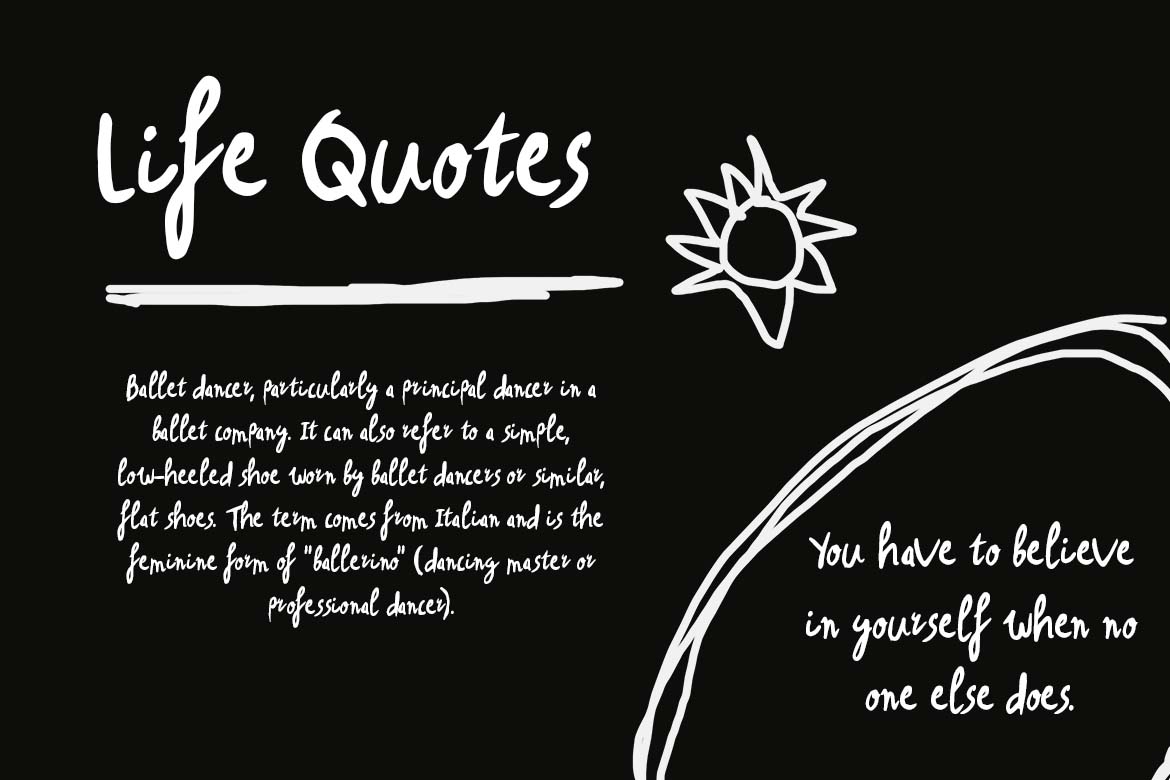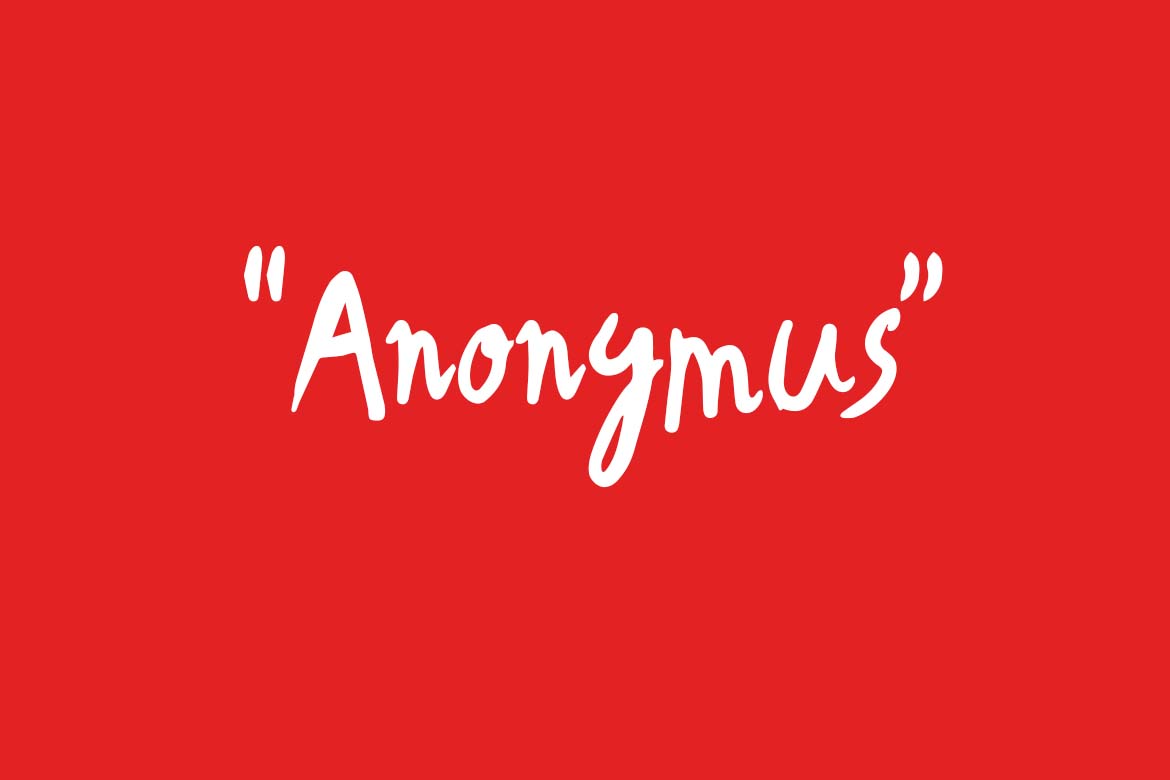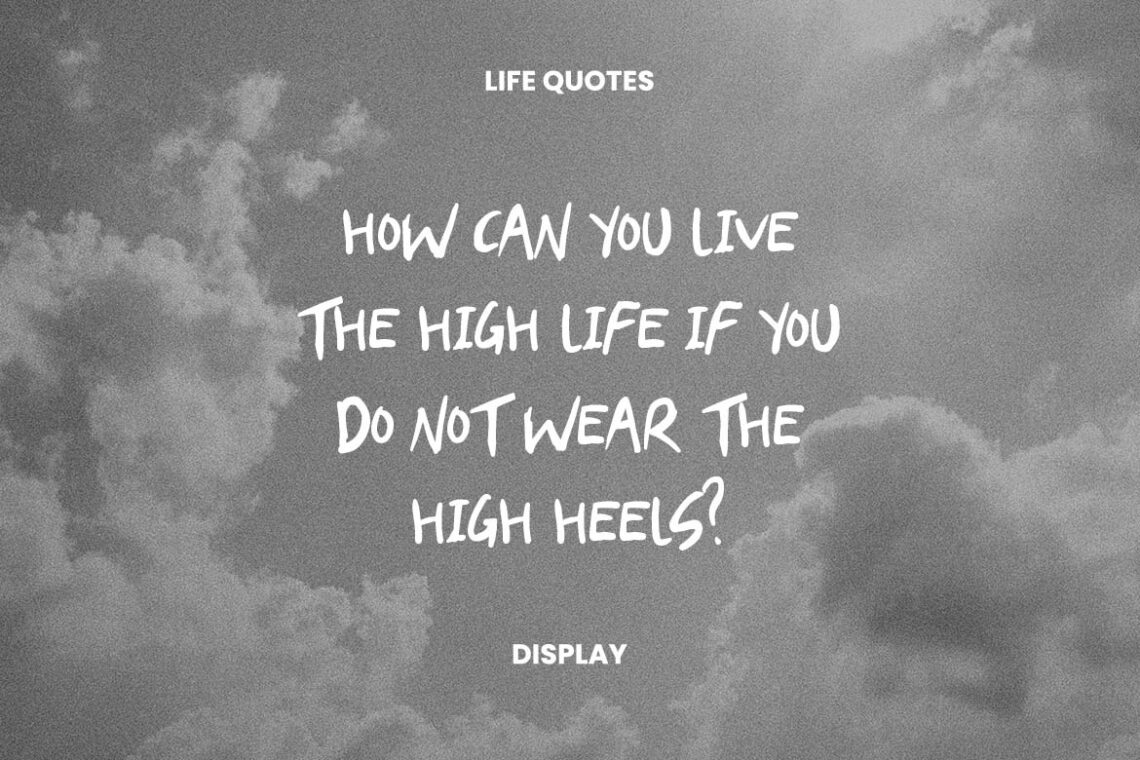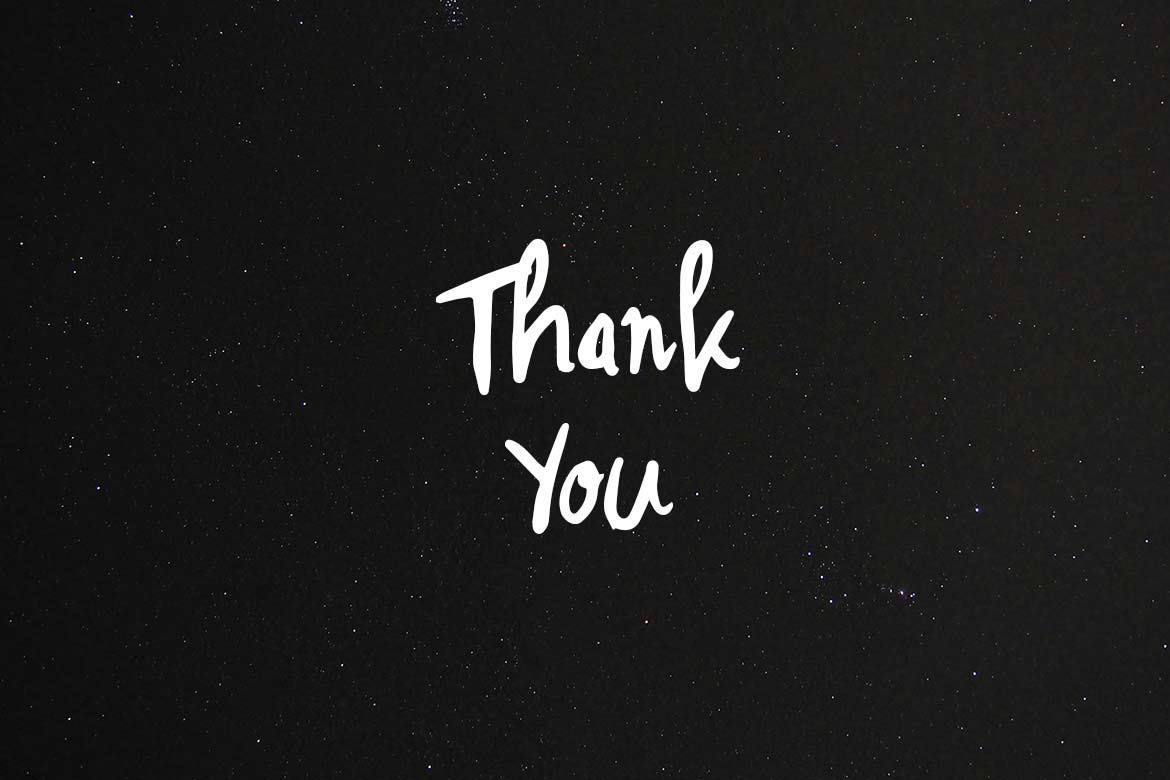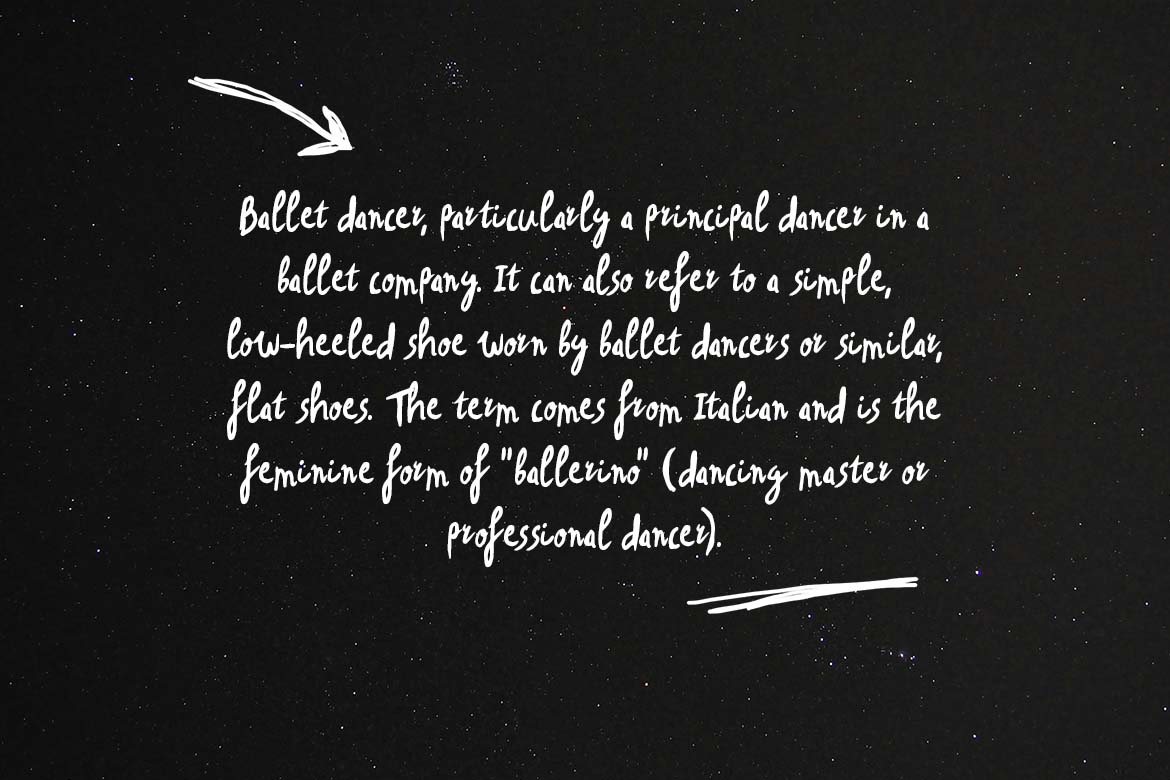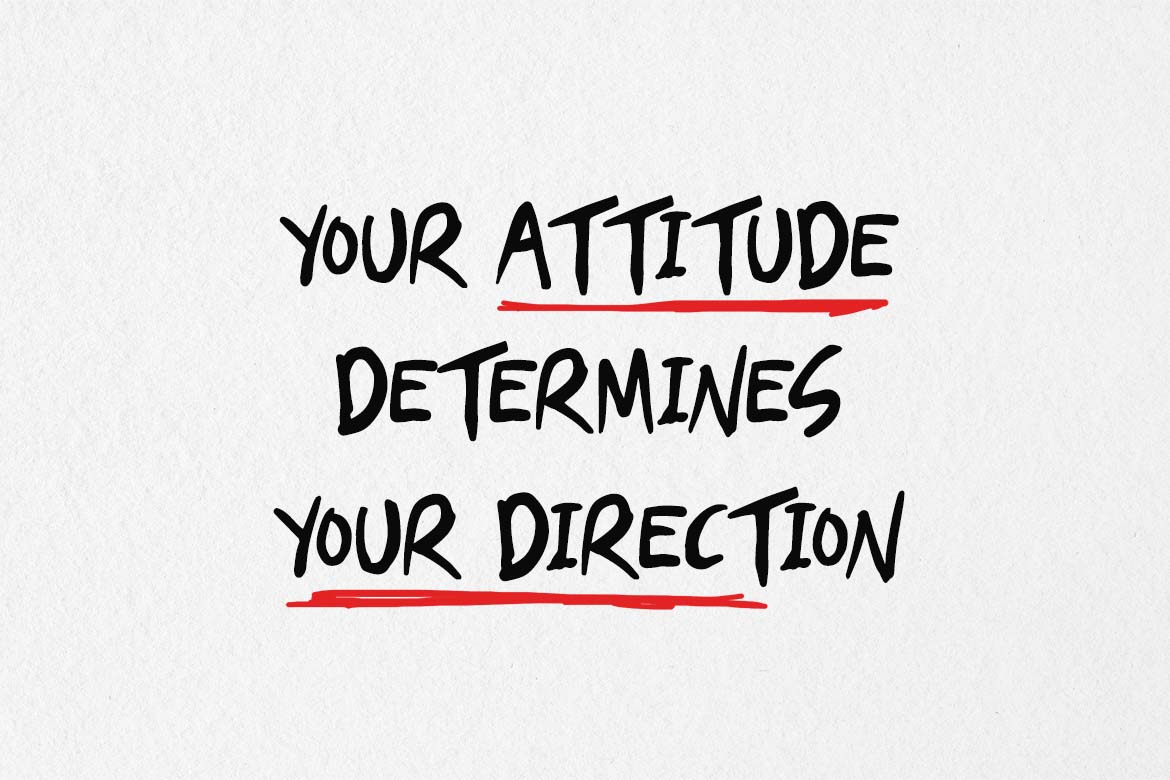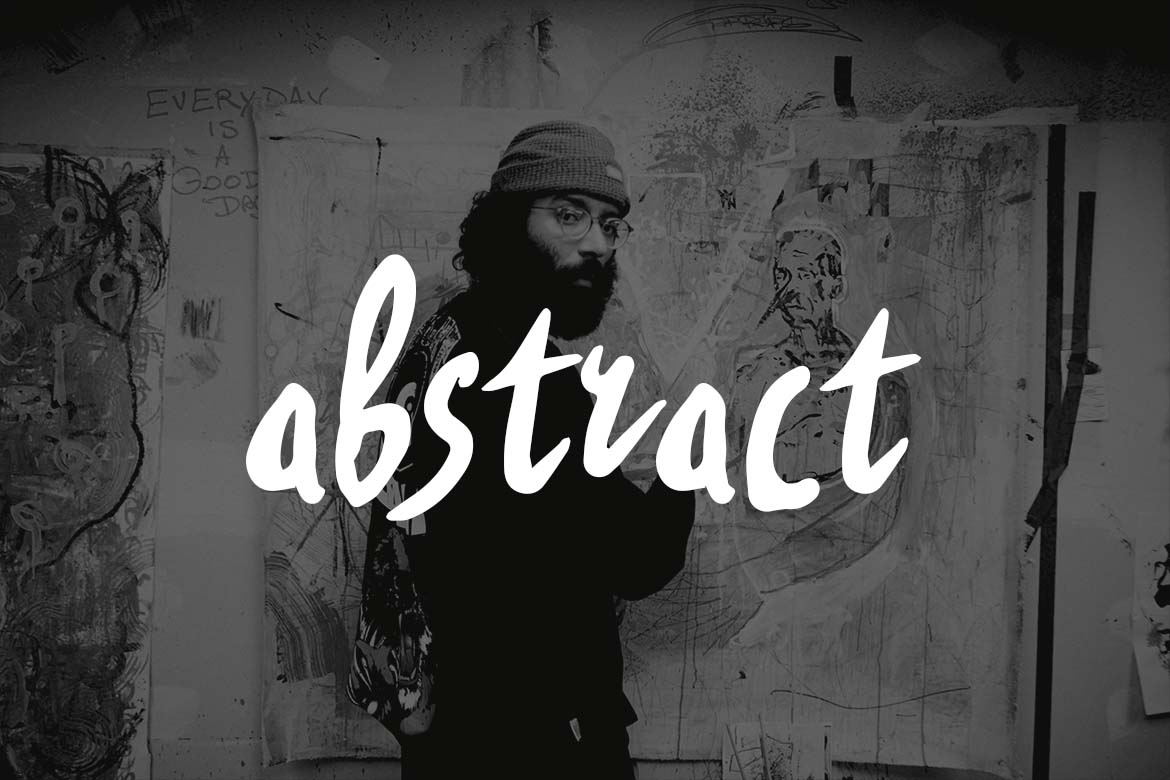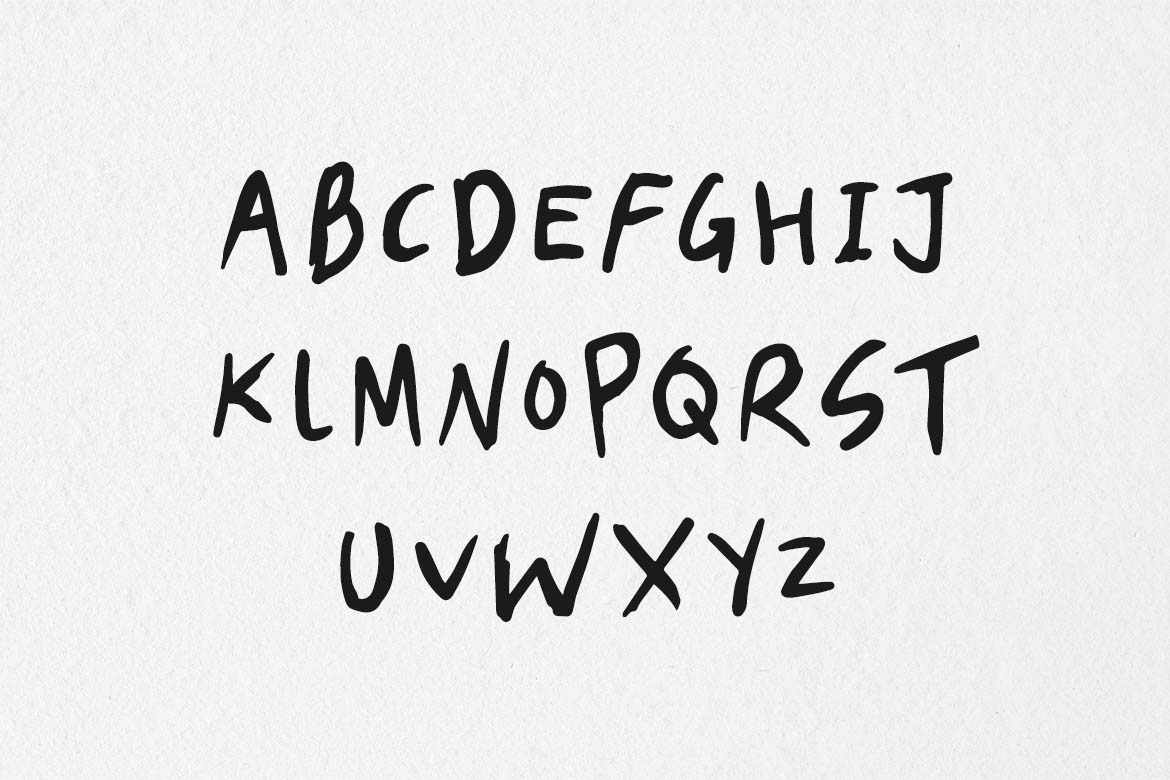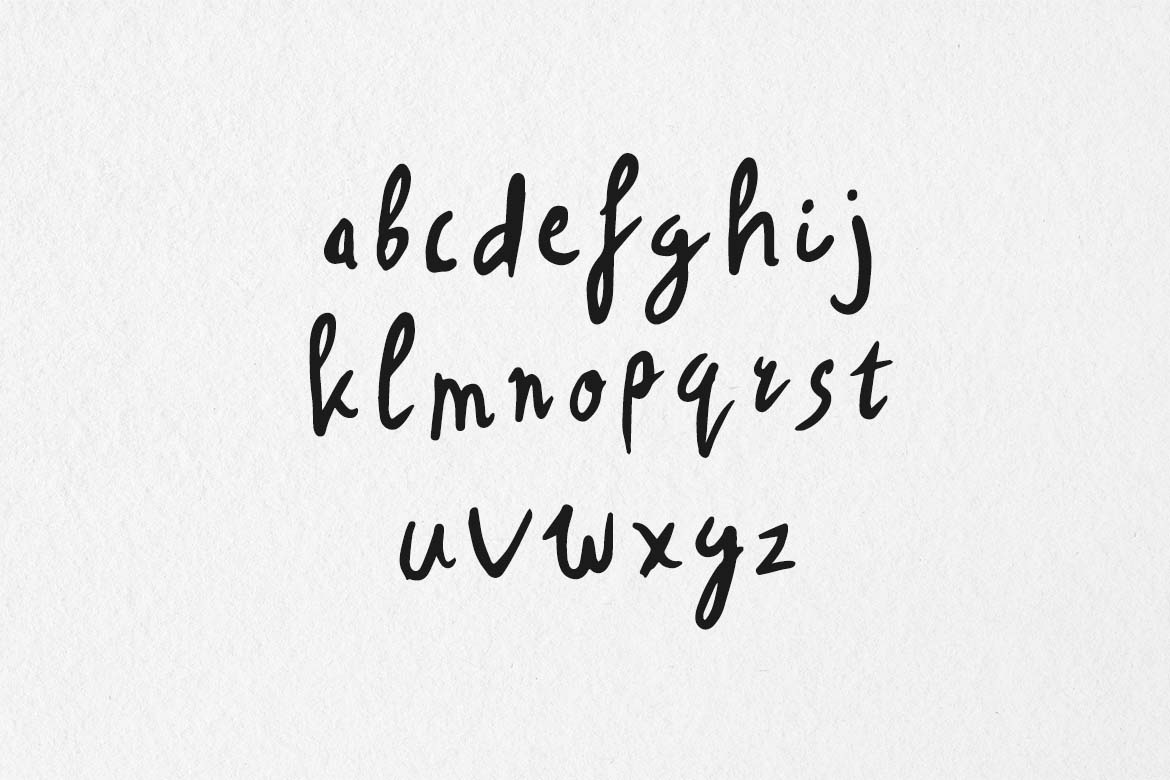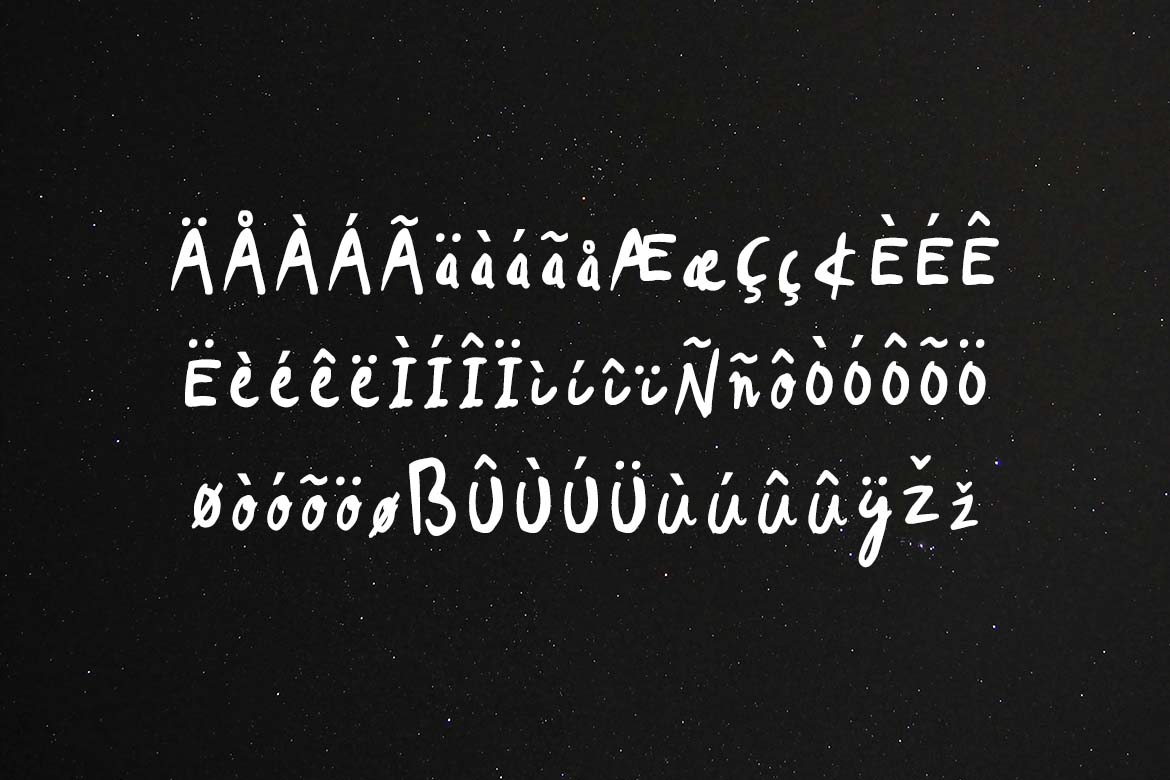
Madness Rogue Casual Handwritten Font
Madness Rogue Casual Handwritten Font. The modern display font feels beautiful classy, elegant, and stylish. This font is ideally suited for a wide variety of projects, such as signature, stationery, logo, wedding, typography quotes, magazine or book covers, website headers, branding, and more. Also, fashion-related branding or editorial design displays both masculine and feminine qualities.